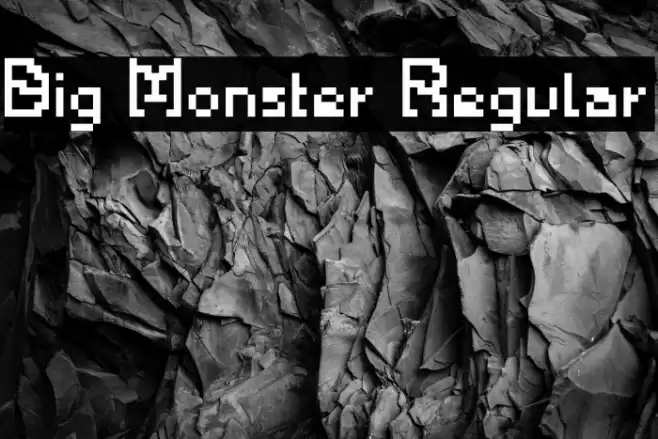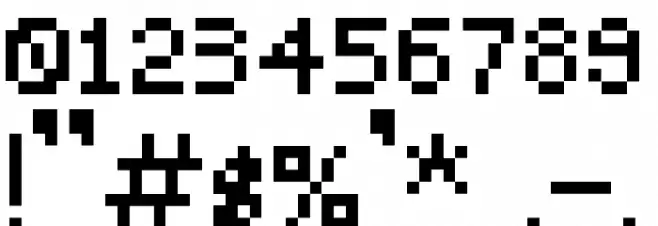
Big Monster Regular Font
Big Monster Regular Description
This font features a bold, pixelated design reminiscent of classic video game graphics. Each character is constructed with a blocky, geometric style, giving it a retro and digital appearance. The uppercase and lowercase letters maintain a consistent height, enhancing the uniformity of the typeface. Numbers and special characters follow the same pixelated theme, ensuring a cohesive look across all elements. The font's distinct style makes it ideal for projects that aim to evoke nostalgia or a tech-inspired aesthetic. Its clear and legible design ensures readability even at smaller sizes, while the boldness adds emphasis and impact.
A bold, pixelated font with a retro, digital style from Uncategorized fonts.
- Proposed Projects: Ideal for video game designs, retro-themed posters, digital art, and tech-related branding.
- Overall Style: Retro, Digital